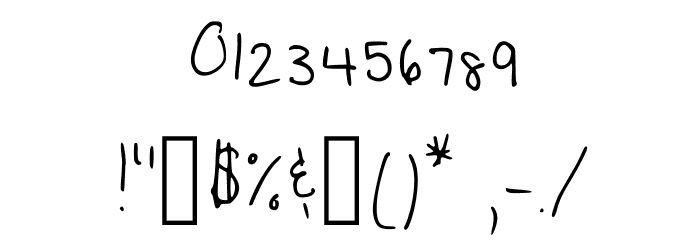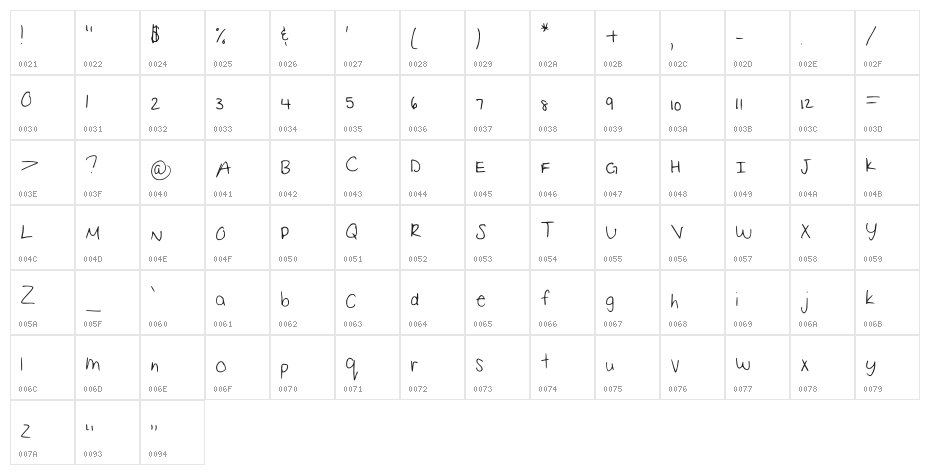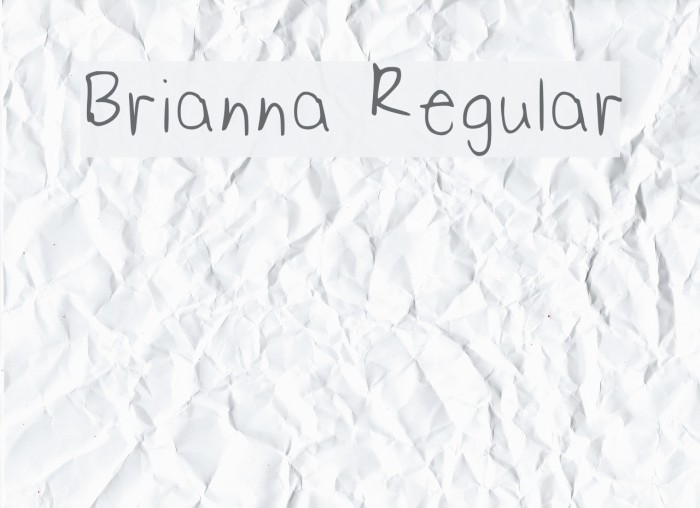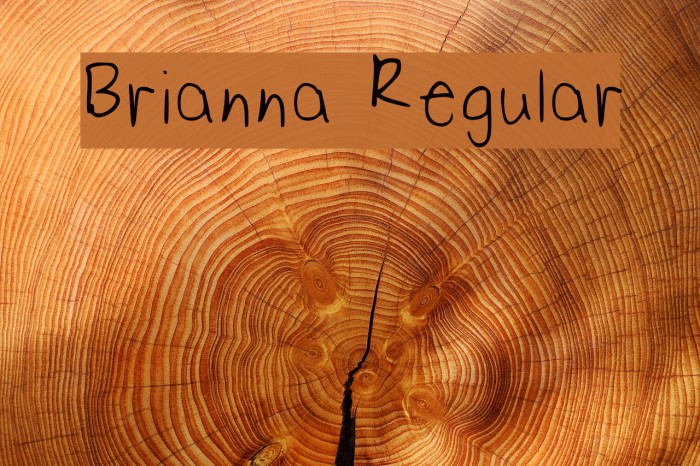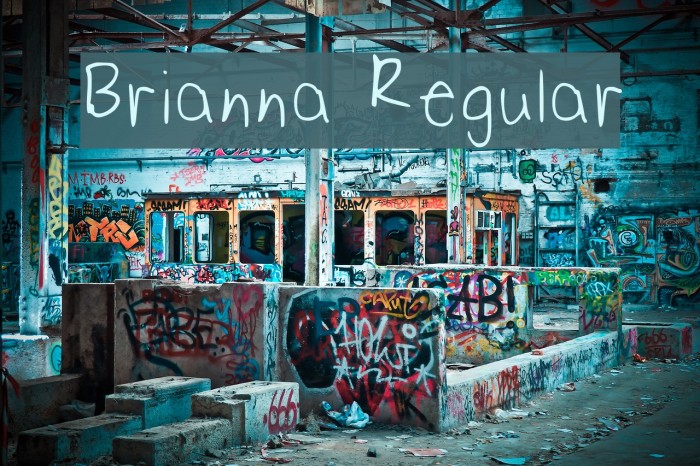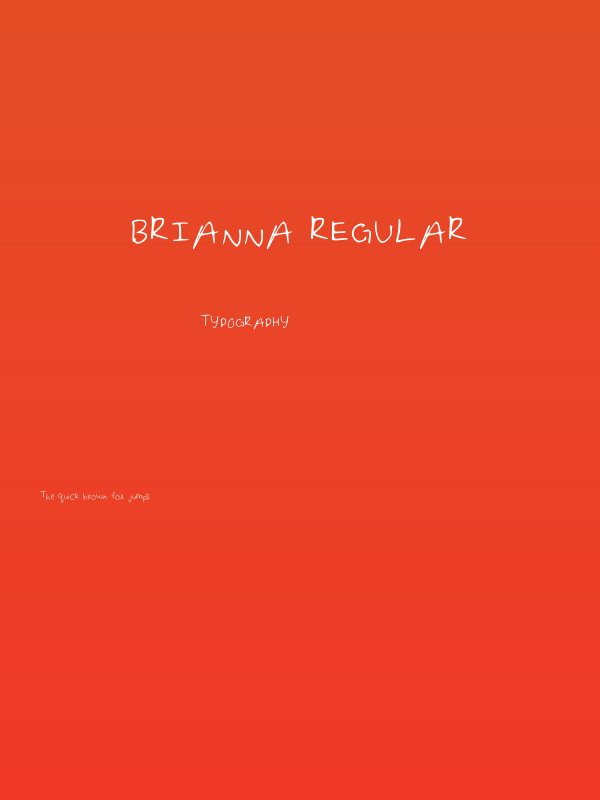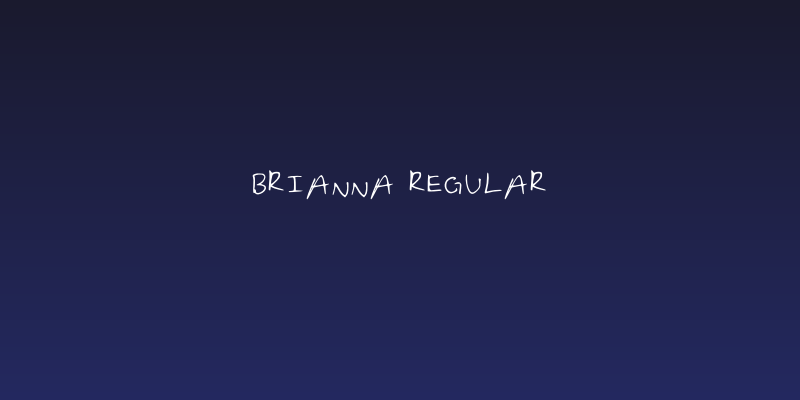
Brianna Regular Font
Brianna Regular Description
This font features a playful and casual handwritten style, characterized by its irregular strokes and informal appearance. The letters have a natural flow, with varying stroke thickness that adds to its charm. The uppercase letters are slightly larger and more pronounced, while the lowercase letters maintain a consistent, friendly look. The numbers and special characters follow the same whimsical style, making it suitable for creative and informal projects. The overall design is approachable and warm, perfect for conveying a personal touch.